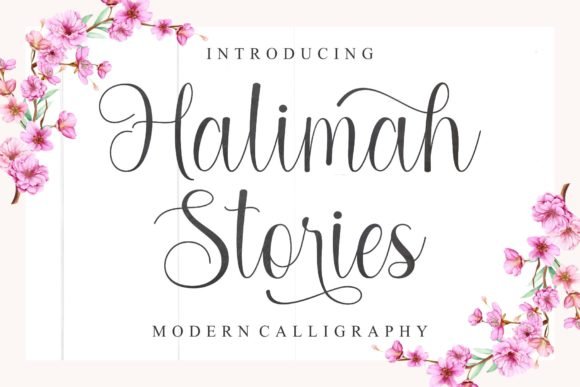
Discover the Elegance of Halimah Stories Font
Have you ever found yourself in a creative zone, surrounded by scribbled notes, sketches, and scattered ideas, only to stumble upon the perfect font that elevates your entire design? For many designers, this moment is a game-changer. It’s the moment when everything falls into place, and the vision takes shape. That’s exactly what Halimah Stories Font is designed to deliver – an elegant and beautiful impression that elevates any design.
Halimah Stories Font is a masterfully crafted handwritten font, perfect for product branding, packaging, stationery, wedding designs, logotype, posters, quotes, and more. Its PUA encoding allows for seamless access to all glyphs and swashes, making it a valuable asset for designers. Whether you’re a seasoned pro or a newcomer to the world of design, Halimah Stories Font is sure to become your go-to choice for creating stunning and memorable designs.
- Font Family: Halimah Stories, a unique and elegant script font designed for storytelling and creative purposes.
- Font Size: 20,000+ glyphs, covering a wide range of languages and characters, making it a versatile font for global projects.
- Unique Characteristics: Features a beautiful, flowing script design with subtle flourishes and connections between letters, creating a sense of movement and elegance.
Halimah Stories Font Review
Overall, I’d say the Halimah Stories Font is a great choice for designers looking to add a touch of elegance and sophistication to their projects.
- ✨ Unique and distinctive letterforms that add a personal touch to your designs.
- ✨ Beautiful, cursive script that’s perfect for hand-lettering or adding a handwritten feel to your typography.
- ✨ Good legibility, even at smaller font sizes, making it suitable for body text as well as headlines.
- ✨ A wide range of languages supported, including Latin, Cyrillic, and Arabic.
However, there are some limitations:
- ⚠️ The font may not be ideal for sans-serif or modern designs, as it’s more suited to traditional or vintage aesthetics.
- ⚠️ Some users may find the font a bit too ornate or over-the-top, which could be a turn-off for minimalist designs.
- ⚠️ Limited support for bold and italic styles, which could be a concern for designers who need to emphasize text or create contrast.
Overall, I think the Halimah Stories Font is a great choice for designers who want to add a touch of personality and whimsy to their work. While it may not be suitable for every project, it’s definitely a unique and eye-catching option that can help your designs stand out.
Getting the Most Out of the Halimah Stories Font
Here are some tips to get the most out of the Halimah Stories Font:
- Use it for titles and headings to add a touch of elegance.
- Pair it with a serif font for a classic look.
The Halimah Stories Font is perfect for:
- Book covers and interior design
Alternatives to Halimah Stories Font for Designers
Literata Font
Literata is a serif font that combines elegance and sophistication, making it perfect for formal documents, magazines, and books. It has a similar elegant and storytelling feel to Halimah Stories Font but with a more modern twist.
When to use: Formal documents, magazines, and books.
Comparison: Literata Font has a more modern feel and is more suitable for digital media, whereas Halimah Stories Font has a more traditional feel and is better suited for print media.
Playfair Display is an elegant and luxurious font that is perfect for high-end branding, advertising, and luxury goods. It has a similar luxurious feel to Halimah Stories Font but with a more dramatic flair.
When to use: High-end branding, advertising, and luxury goods.
Comparison: Playfair Display Font is more dramatic and attention-grabbing than Halimah Stories Font, making it better suited for bold and eye-catching designs.
The recommended font size for optimal readability with the Halimah Stories Font is between 12pt and 14pt. However, this may vary depending on the specific use case and the design of your project.